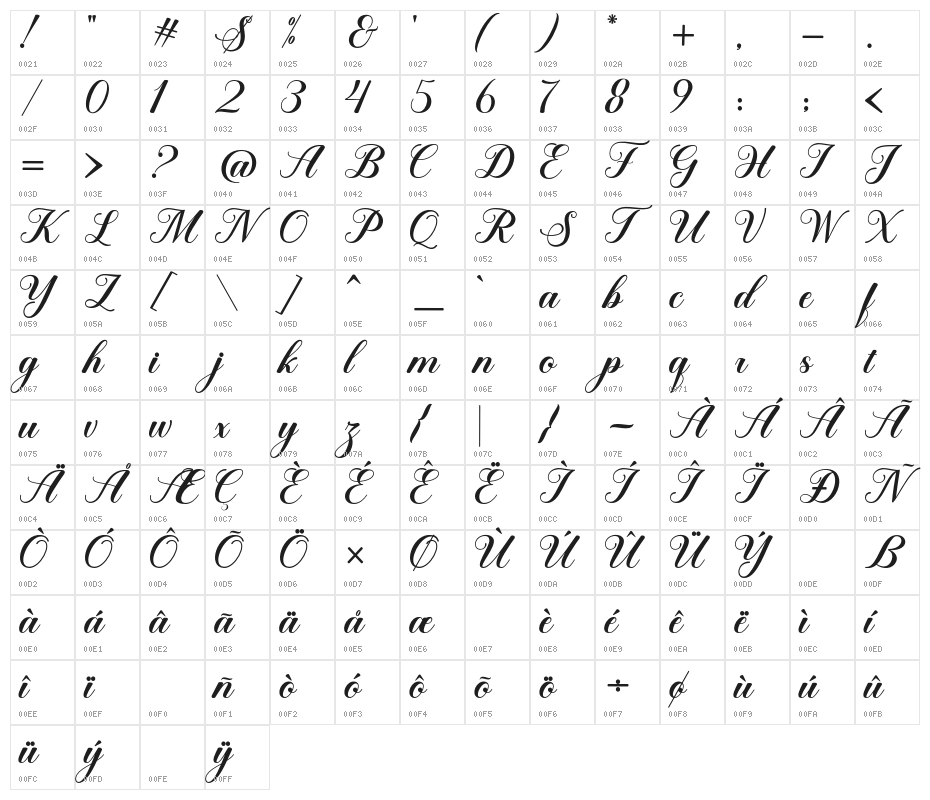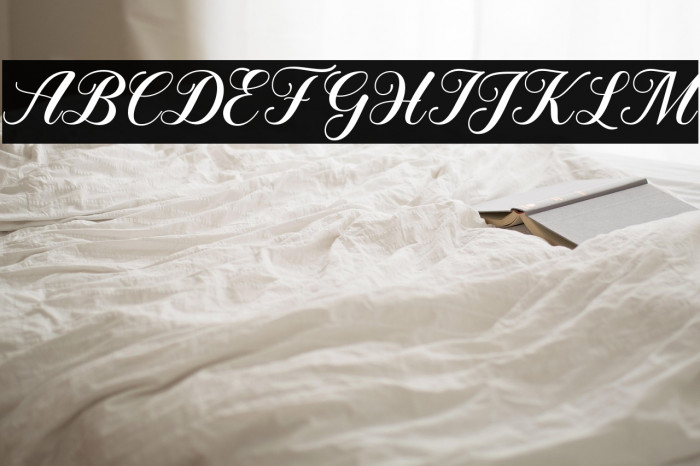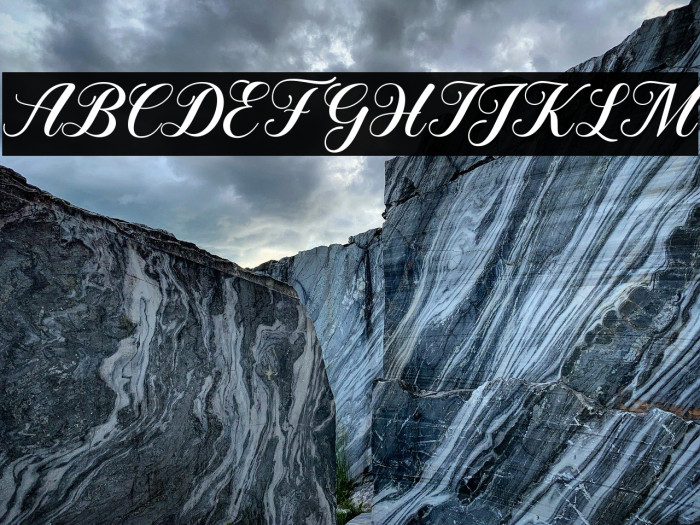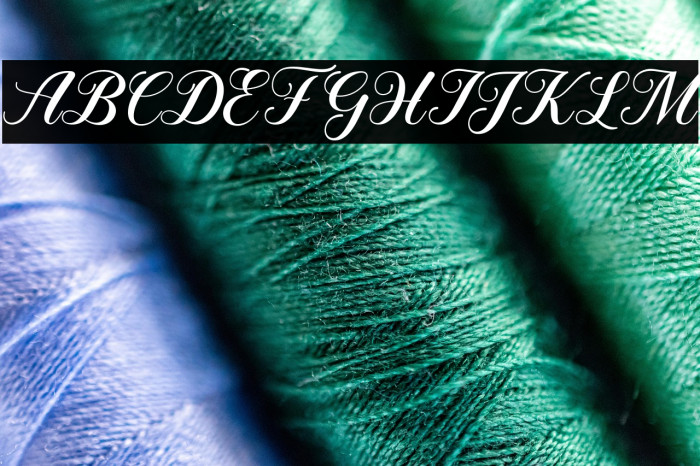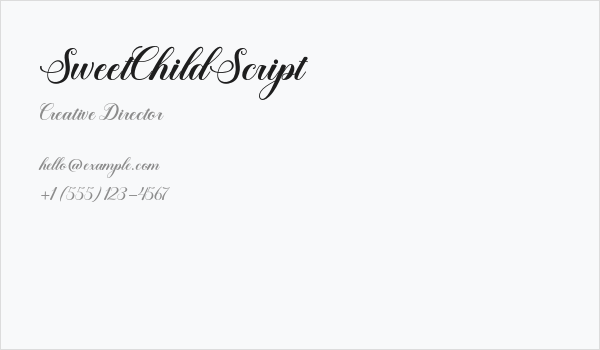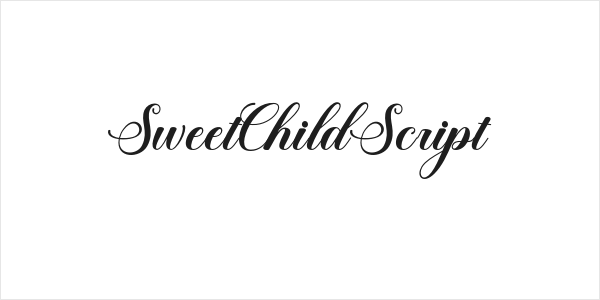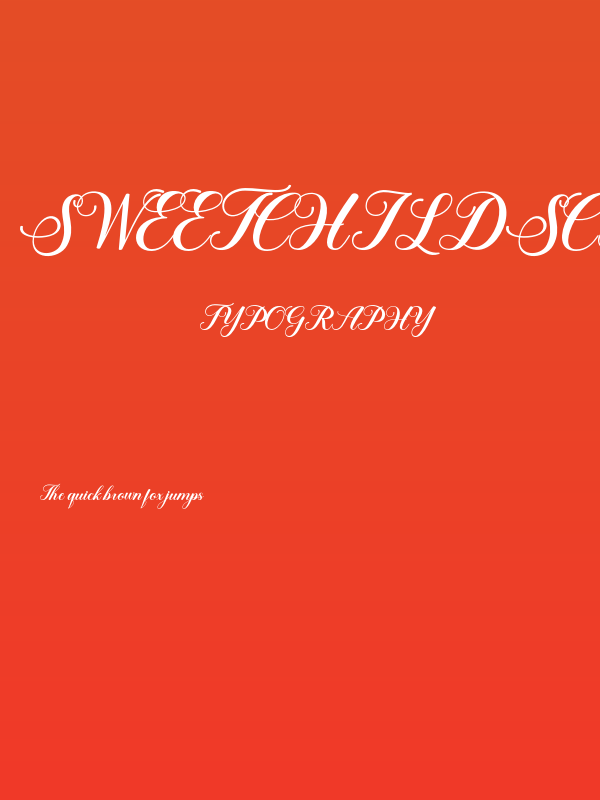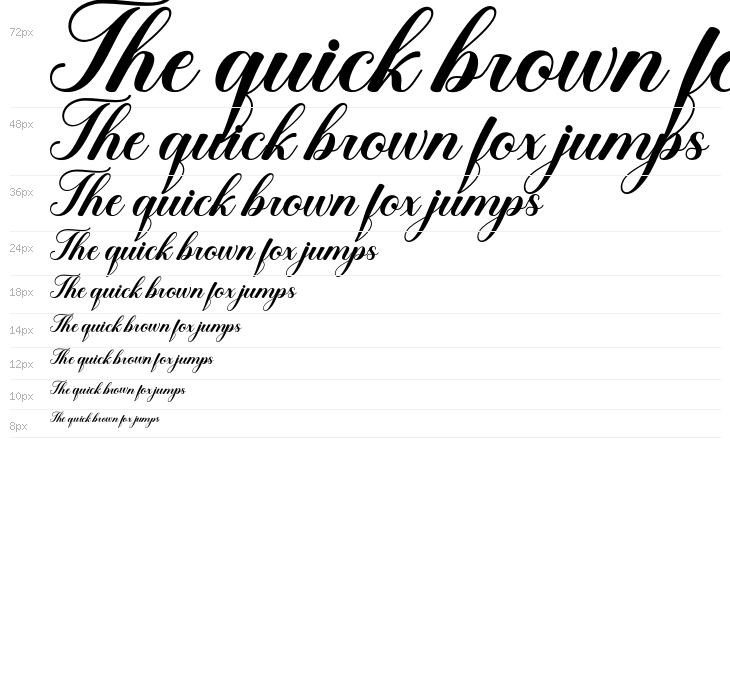
SweetChildScript Font
SweetChildScript Description
This elegant script font features flowing, cursive letters with a high degree of flourish and sophistication. The uppercase characters are ornate, with sweeping curves and loops that give a sense of movement and grace. The lowercase letters maintain a consistent style, with smooth connections between each character, enhancing readability while preserving the decorative nature. Numbers and special characters are designed with the same attention to detail, ensuring a cohesive look across all text elements. The font's high contrast in stroke thickness adds to its dramatic and stylish appearance, making it suitable for formal and creative applications.
| Overall Style | Elegant, Decorative |
| Use Case | Logos, Invitations, Decorative Text |
| Proposed Projects | Ideal for wedding invitations, luxury branding, elegant signage, and artistic projects requiring a touch of sophistication. |